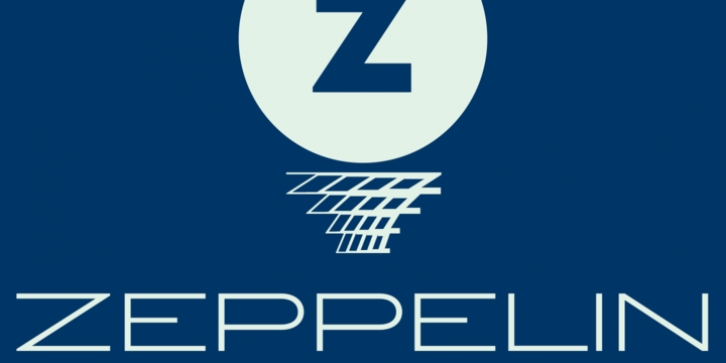
Zeppelin was designed by František Štorm and published by Storm. Zeppelin contains 42 styles and family package options.
Outside letterings, either hand-painted or machine-cut, have always a solid skeleton, clearly apparent in all weights and widths. Zeppelin shares much of those inspiration sources and its consistent monolienar drawing is nearly naive, with no trace of expression. That's common to most of universal typefaces with a very broad field of application. Zeppelin type family is very good in magazines, posters, advertising, information systems inside/outside buildings, in traffic, being extremely legible in smallest point sizes or from longest distance.